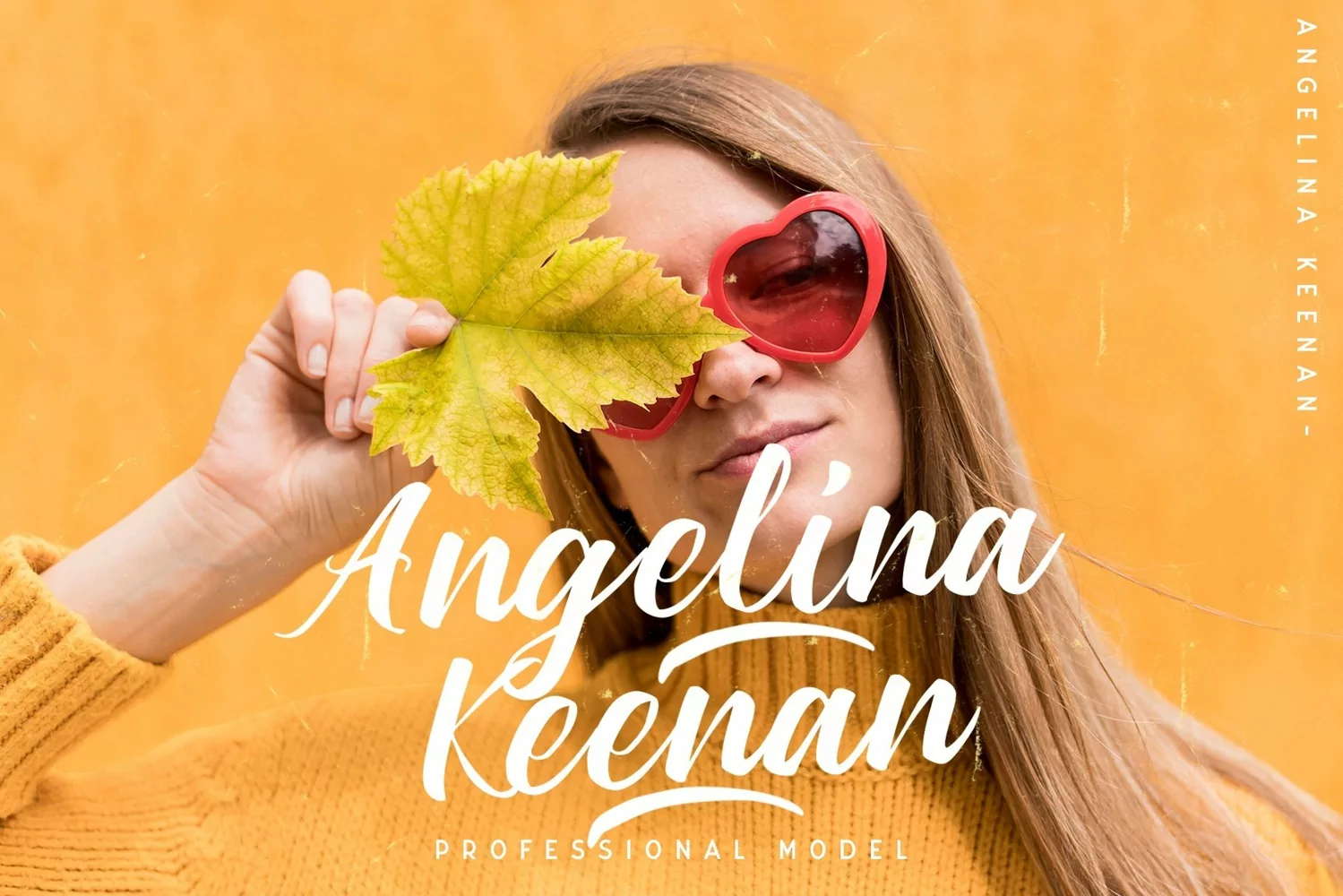
Gurmone is a Brush Script Typeface. Perfect for display, quotes, poster, business card, greeting card, header, tittle, print, t-shirt, signature, logo, logotype, packaging, merchandise, and many more.